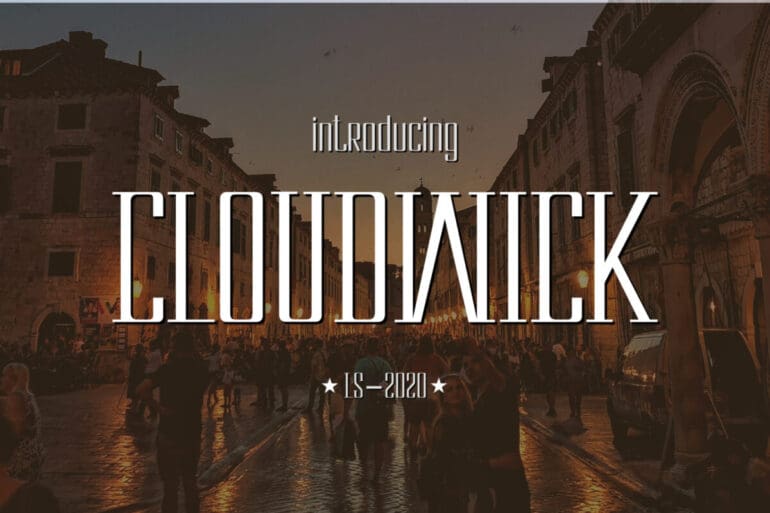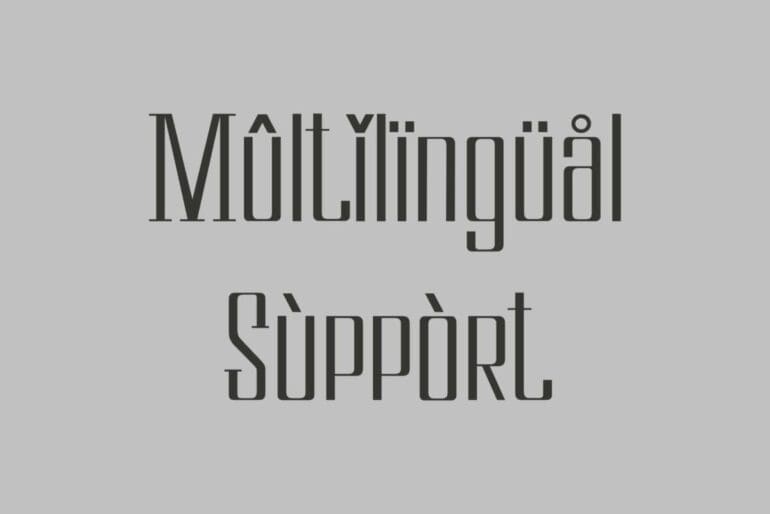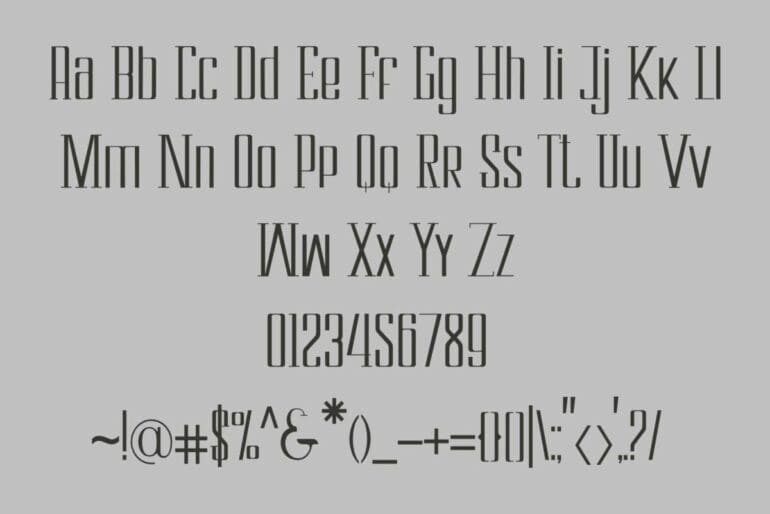
Cloudwick Font
Cloudwick Font, This pair was inspired by the retro poster design that I saw on some coffee shops, It was crafted by hand especially to add a natural handmade feeling in its brand identity then I make it clean with a pen tool.